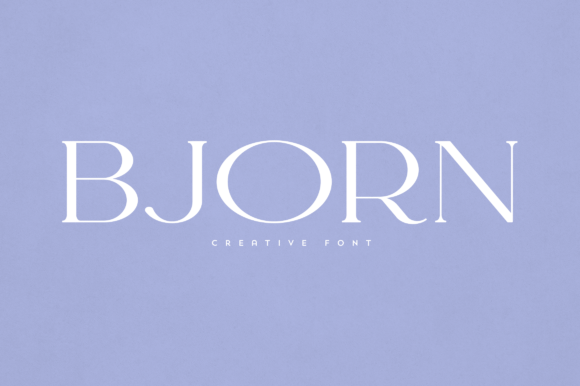
Discover the allure of Bjorn Font, an exquisite serif typeface designed to captivate and inspire. Immerse yourself in a world of elegance as Bjorn's graceful curves and distinctive details elevate your designs to new heights.
Crafted by the visionary artist vladfedotovv, Bjorn Font is a masterpiece that transcends ordinary fonts. Its versatility empowers you to unleash your creativity across a myriad of mediums, from eye-catching logos and captivating headlines to sophisticated branding and alluring packaging.
With Bjorn Font, your Instagram presence will radiate with an unparalleled charm. Its delicate strokes and refined aesthetics will transform your images into captivating works of art, inviting your followers to engage and connect with your brand on a deeper level.
Bjorn Font seamlessly adapts to the home, adorning home-ware designs with an air of sophistication. Its presence on product packaging transforms mundane items into objects of desire, enticing customers with its elegant allure.
Let Bjorn Font grace the pages of your magazines, elevating headlines and captivating readers with its timeless beauty. Its ability to enhance any background image makes it an indispensable tool for creating stunning and memorable visuals.
Embrace the power of Bjorn Font and witness the transformation of your designs. Its captivating essence will ignite your imagination, empowering you to create a visual masterpiece that resonates with your audience and leaves an unforgettable impression.